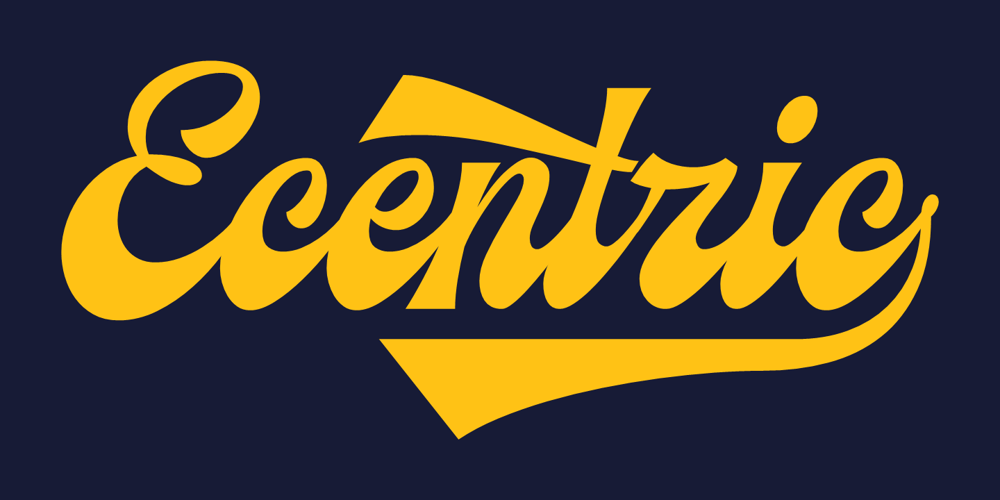
Ecentric
Ecentric Font Family was designed by Nurul Fajri Redy and published by Redy Studio. Ecentric contains 1 styles and family package options. Ecentric is a bold font inspired by the vintage style of letters on posters, bagde, packaging, labels from antiquity. The classic feel is really perfect you who needs a vintage typeface for logotype, apparel, branding, packaging, quote etc.